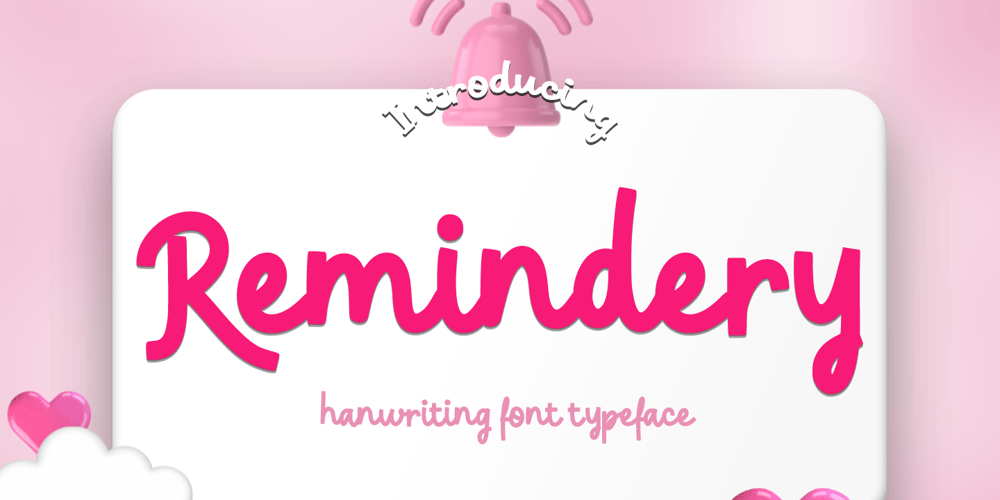
Remindery Font Family was designed by Muhammad Zaini and published by Cocodesign. Remindery contains 1 styles and family package options. Remindery Handwriting, simple, and cute font. Its simplicity made this font can be used for wide ranges of design projects, especially designs that need handwritten and cuteness touch.